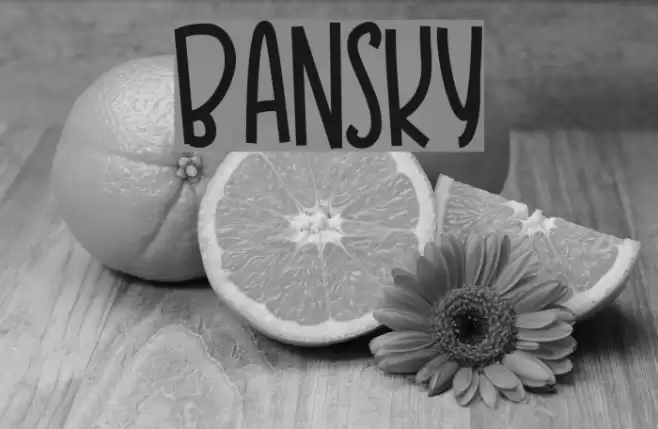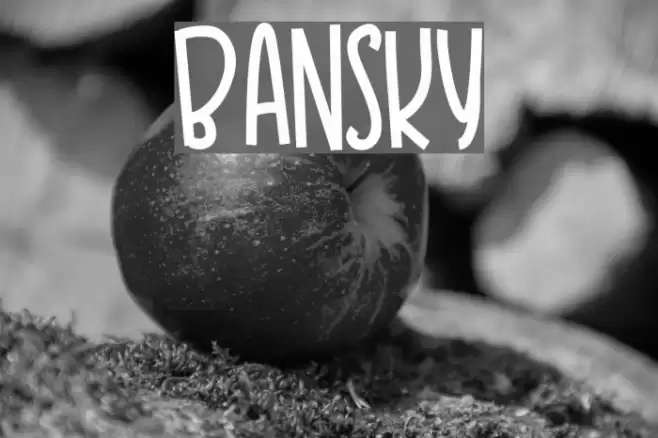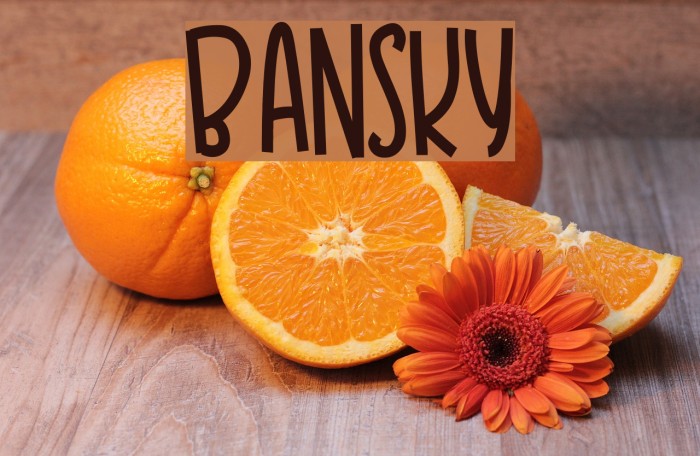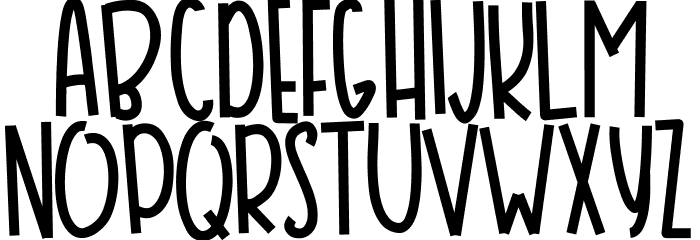
BANSKY Font
BANSKY Description
This font features a playful and quirky design with tall, narrow characters that have a hand-drawn feel. The uppercase letters are elongated with slight variations in stroke width, giving them a dynamic and lively appearance. The lowercase letters maintain the same whimsical style, complementing the uppercase set. The numbers and special characters are consistent with the overall aesthetic, adding to the font's unique charm. This font is ideal for projects that require a fun and informal touch, such as children's books, posters, or creative branding.
A playful, hand-drawn font with tall, narrow characters and a quirky style from Uncategorized fonts.
- Proposed Projects: Ideal for children's books, playful posters, creative branding, and informal invitations.
- Overall Style: Playful, Quirky
- Use Case: Headlines, Posters, Creative Branding